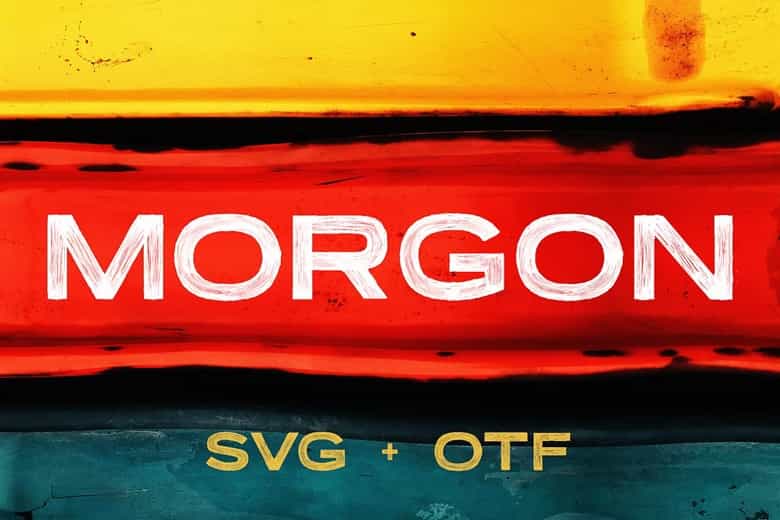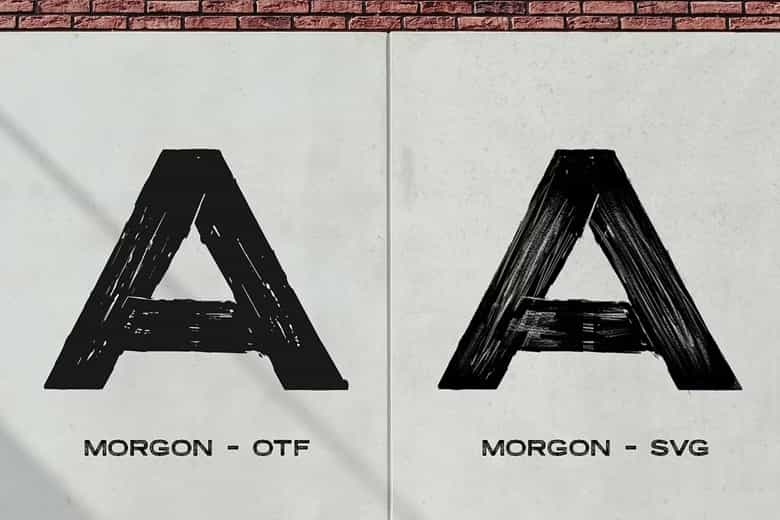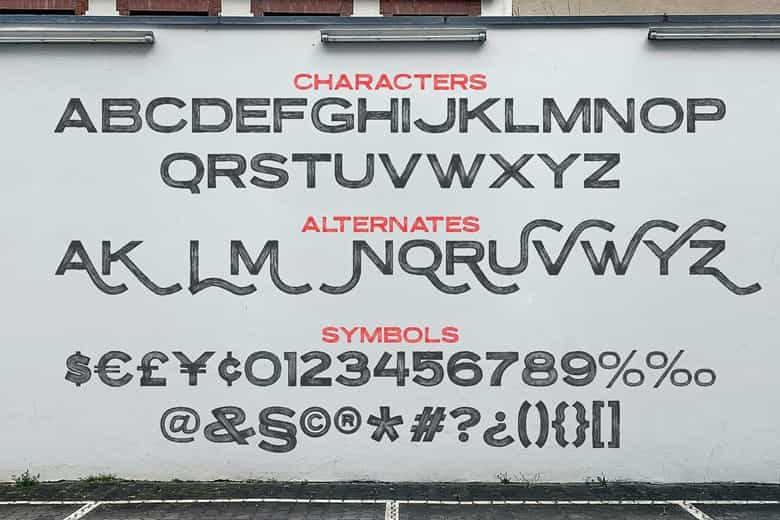
Morgon is a textured brush font in SVG format. This updated sans serif has some helpful additional characters to use when designing more creative typography. Get the strong lines and large surface of the regular vector font or the added possibility of the semi-transparency of the SVG version. Help your brand get noticed today by selecting Moron SVG to help bring your brand to life.